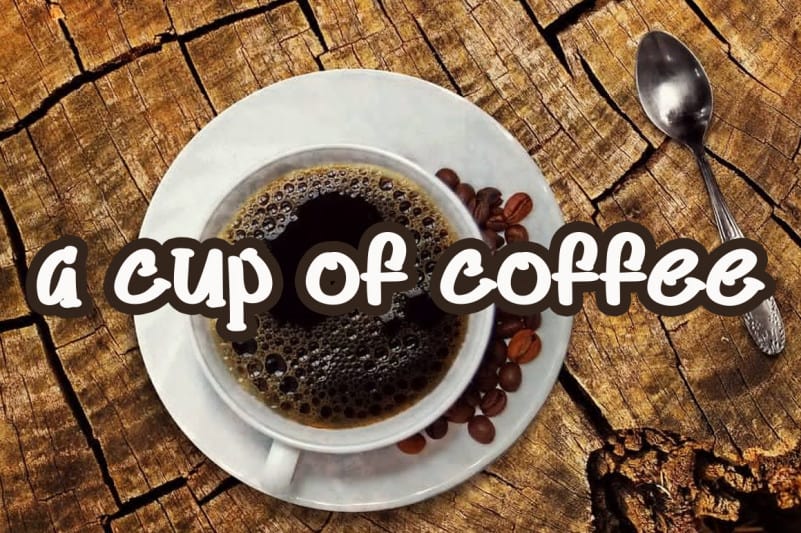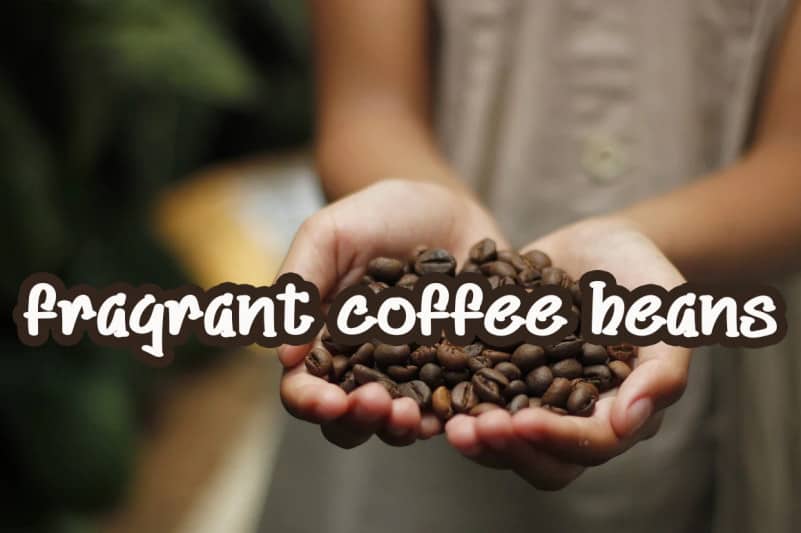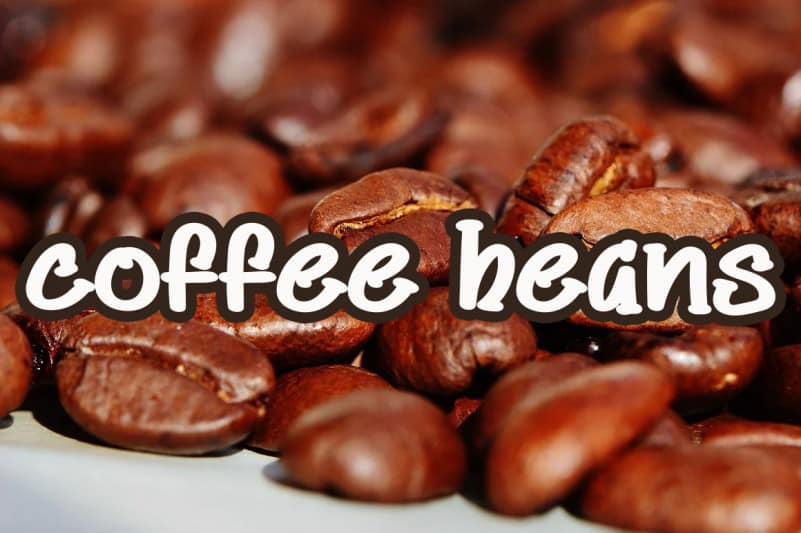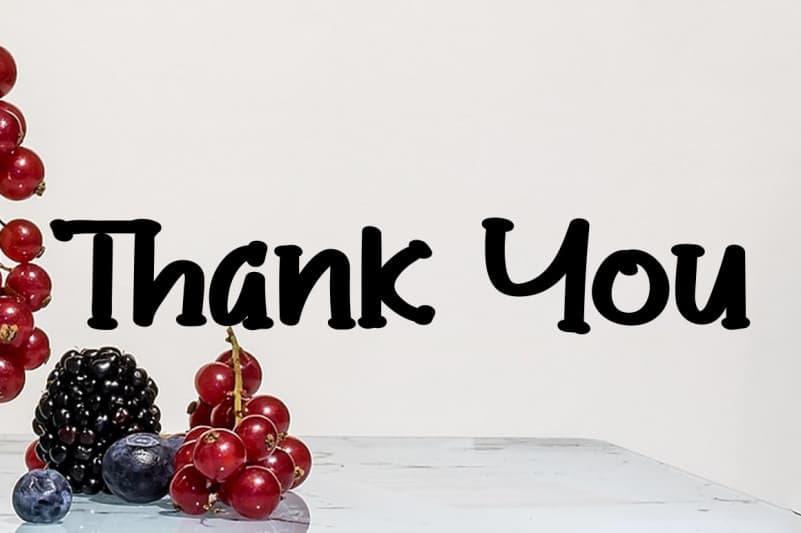
Coco Water Display Font
Coco Water Display Font is an incredibly quirky and sweet display font. Whether you use it for cartoon related designs, children games or just any creation that requires a lovely touch, this font will be an amazing choice.
Coco Water Display Font is a very talented product for you to use,
Latest letters that can be used for various products, invitations, wall hangings, weddings, and more.